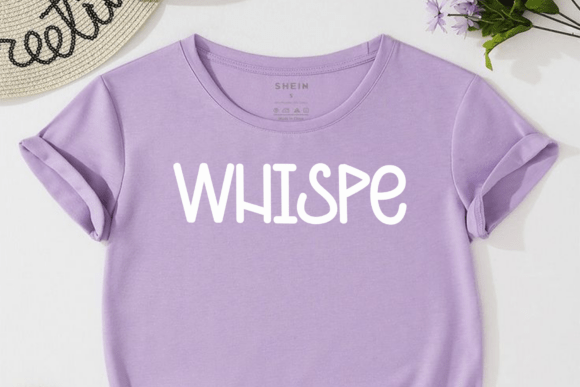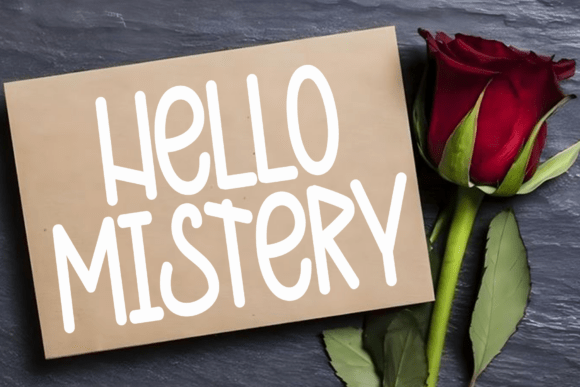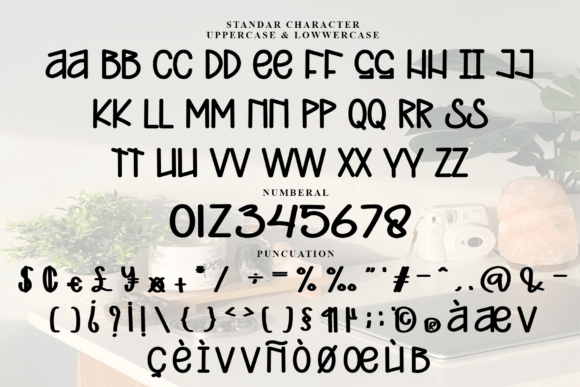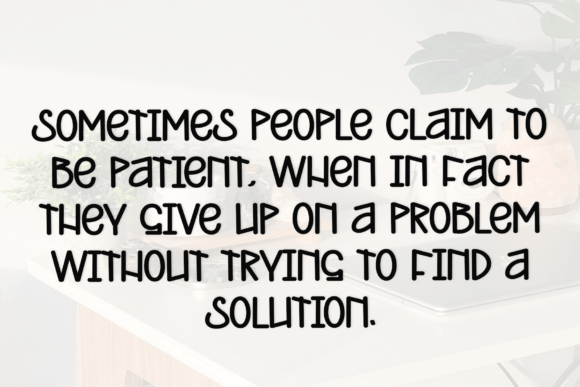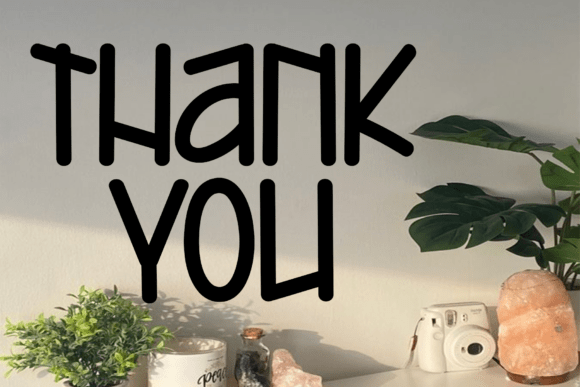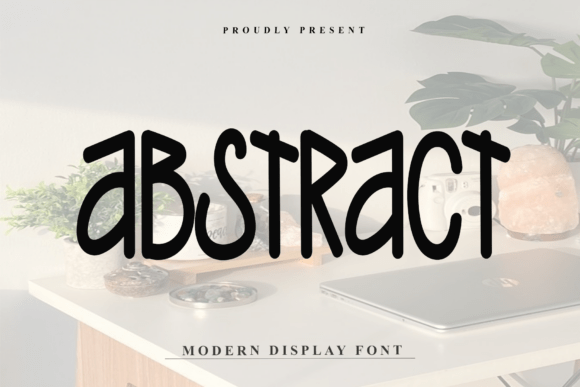
The Perfect Blend of Modern Minimalism
Imagine you’re flipping through a high-end lifestyle magazine, and a beautifully crafted headline catches your eye. The words seem to dance across the page in a delicate, handwritten script that’s both elegant and approachable. This is the moment when the Abstract Font truly shines, offering a sleek, monolinear handwritten style that elevates your design to new heights.
The Abstract Font is more than just a typeface – it’s a versatile tool for designers looking to add a human touch to their work. With its tall, slender characters and soft curves, this Black Home font bridges the gap between casual handwriting and high-end editorial design. Whether you’re working on a product packaging project, creating a signature-style watermark, or designing a luxury wedding invitation, the Abstract Font is the perfect choice for adding a touch of sophistication and elegance to your design.
As a designer, you know how important it is to find the perfect font to bring your vision to life. The Abstract Font is a valuable addition to any design arsenal, offering a unique blend of modern minimalism and polished sophistication that’s sure to impress.
Key Features of Abstract Font
- Unique Character Set: Abstract Font features a unique character set, including a wide range of glyphs and symbols, making it ideal for creative and artistic applications.
- Flexible Styling Options: Abstract Font offers a range of styling options, including bold, italic, and condensed versions, allowing designers to create a wide range of visual effects.
Designer Review: Abstract Font
Overall, I think Abstract Font is a bold and eye-catching choice for digital projects. ✨ It’s perfect for creating a futuristic and high-tech vibe, which can be super effective for tech startups, gaming, or futuristic-themed designs. The font’s unique, abstract shapes add a lot of visual interest and can help break up large blocks of text.
- ✨ The font’s unique, abstract shapes add visual interest and help break up large blocks of text.
- ✨ It’s perfect for creating a futuristic and high-tech vibe, which can be super effective for tech startups, gaming, or futuristic-themed designs.
- ✨ The font is highly customizable, making it easy to adapt to different design projects.
- ⚠️ The font can be difficult to read for extended periods, especially in smaller text sizes.
- ⚠️ It may not be the best choice for body text, as it can be overwhelming and distracting.
- ⚠️ Some characters, such as the letter ‘e’, may be harder to recognize than others.
Overall, I think Abstract Font is a great choice for digital projects that require a bold, futuristic look. While it has some limitations, I think it’s well worth considering for the right project. Just be sure to use it sparingly and in the right context to avoid overwhelming your audience.
Abstract Font: A Practical Application Guide
Getting the Most Out of Abstract Font
To get the most out of Abstract Font, experiment with different font sizes, colors, and styles to create unique and eye-catching designs.
Abstract Font is commonly used in:
- Graphic design projects, such as posters and brochures.
- Typography-based art and designs.